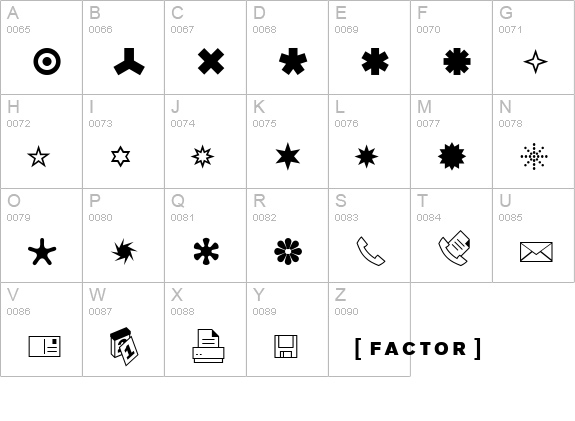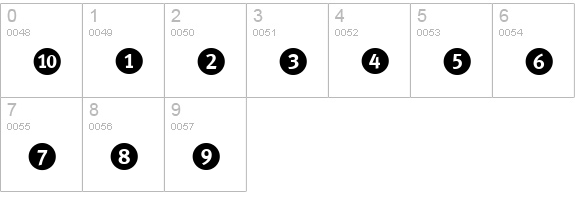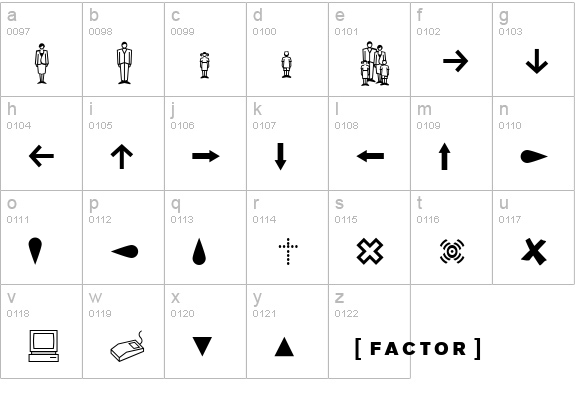
FFDingbests Font Details
FFDingbests font is a versatile and stylish typeface that adds a touch of creativity to any design project. This unique font features a playful and whimsical look, making it perfect for a wide range of applications, from logos and branding to posters and social media graphics. With its charming and eye-catching characters, FFDingbests font is sure to make your text stand out and grab attention. Best of all, FFDingbests font is available for free download at FontsMarket.com. You can easily access this amazing font and use it in your projects without any cost. Whether you're a designer looking to add a fun element to your work or simply someone who appreciates great typography, FFDingbests font is a must-have in your font collection. Don't miss out on this fantastic opportunity to enhance your designs with this free and fabulous font!